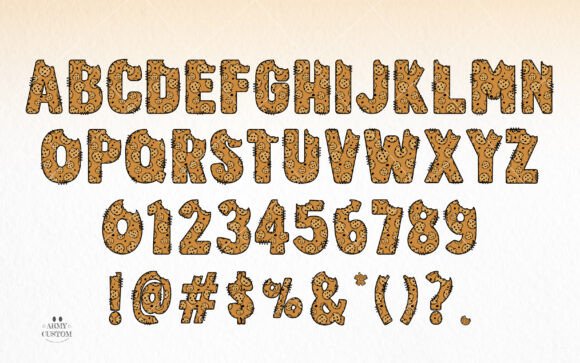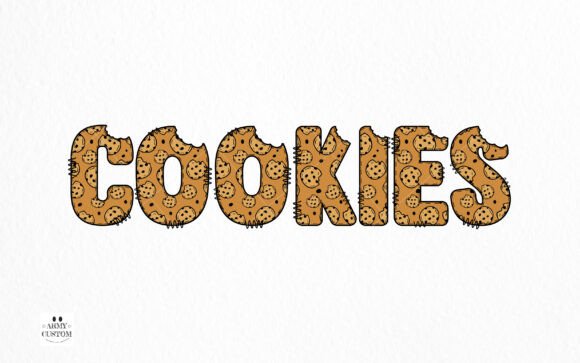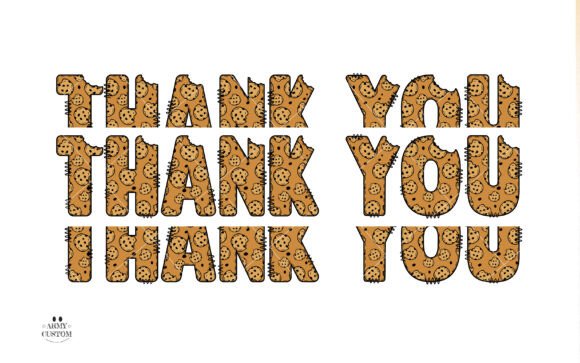
Introduction to Cookies Army Font
As you sit down to craft the perfect holiday card, or design a festive website, the struggle is real. You want your message to shine with the same warmth and magic as the season itself. That’s where the Cookies Army Font comes in – a delightful, whimsical typography that brings the merry spirit of Christmas to life. Inspired by the cutest of gingerbread decorations, this enchanting font is the perfect design resource for any creative project.
Whether you’re a seasoned designer or a DIY enthusiast, the Cookies Army Font is a valuable addition to your toolkit. With its high-quality, transparent background, you can easily overlay your designs and create stunning visuals that capture the essence of the holiday season. And the best part? It’s a free download, making it accessible to anyone looking to add a touch of magic to their creative projects.
Key Features of Cookies Army Font
- High-quality design resource perfect for creative projects
- Unique, bold, and playful font style ideal for branding and advertising
Honest Review: Cookies Army Font
I recently stumbled upon the Cookies Army Font and I must say it’s a great addition to any designer’s toolkit. This font is perfect for creative projects that require a unique and playful touch.
What works well: ✨ The font is highly customizable, making it easy to adjust the style to fit your design needs. The characters are well-designed and consistent, ensuring a smooth and cohesive look. Additionally, the transparent background makes it easy to overlay the text on top of images or other design elements.
What I’d like to see improved: ⚠️ The font is not suitable for formal or professional designs, as it may come across as too playful or childish. Additionally, some of the characters may require manual adjustments to achieve the desired look.
Overall, I’m impressed with the Cookies Army Font. It’s a great resource for designers who want to add a touch of whimsy to their projects. If you’re looking for a free download, I’d definitely recommend checking it out. The quality is high and the design is well-executed.
Common Use Cases for the Cookies Army Font
The Cookies Army Font is perfect for creating logos, social media graphics, and other design projects that require a fun and playful touch. You can also use the font to create custom invitations, party decorations, and other creative projects.